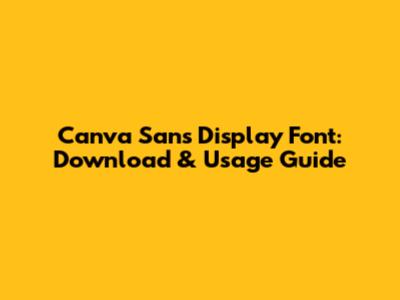
Canva Sans Display Font: Download & Usage Guide
Hey guys! Are you looking to elevate your design game with a fresh, modern font? Look no further! In this article, we're diving deep into Canva Sans Display, a versatile and eye-catching typeface that can seriously enhance your projects. We'll explore what makes Canva Sans Display so special, where you can download it, and how to effectively use it in your designs. So, buckle up and get ready to unleash the power of typography!
What is Canva Sans Display?
Let's start with the basics: what exactly is Canva Sans Display? Well, it's a sans-serif typeface designed with clarity and impact in mind. This font boasts clean lines, balanced proportions, and a contemporary feel, making it perfect for a wide range of applications. Canva Sans Display isn't just another font; it's a carefully crafted tool that helps you communicate your message effectively. Think of it as the stylish friend who always knows what to say and how to say it. Whether you're creating a sleek website header, a bold poster, or an engaging social media graphic, Canva Sans Display can help you make a statement.
One of the key features of Canva Sans Display is its versatility. It's designed to be legible at various sizes, ensuring that your text remains clear and readable whether it's displayed on a large screen or a small mobile device. The font also includes a variety of weights and styles, giving you the flexibility to create visual hierarchy and add emphasis where needed. From light and airy to bold and impactful, Canva Sans Display offers a range of options to suit your specific design needs. Furthermore, the font supports a wide range of characters and languages, making it a great choice for international projects. So, whether you're designing for an English-speaking audience or reaching out to a global market, Canva Sans Display has got you covered. In essence, Canva Sans Display is more than just a font; it's a comprehensive typographic solution that can help you bring your creative visions to life. Its modern aesthetic, combined with its practical features, makes it a valuable asset for designers of all levels. So, if you're looking for a font that can help you make a lasting impression, Canva Sans Display is definitely worth considering.
Why Use Canva Sans Display?
Now, you might be wondering, "Why should I choose Canva Sans Display over the thousands of other fonts out there?" That's a great question! There are several compelling reasons why Canva Sans Display stands out from the crowd. First and foremost, it's incredibly versatile. This font can be used in a wide range of design projects, from website headers and logos to social media graphics and print materials. Its clean, modern aesthetic makes it suitable for both corporate and creative applications.
Another key advantage of Canva Sans Display is its readability. The font is designed with clear, well-defined characters that are easy to read at various sizes. This is especially important for digital designs, where users may be viewing your content on different devices and screen resolutions. With Canva Sans Display, you can be confident that your text will always be legible and visually appealing. Moreover, Canva Sans Display is designed to work seamlessly with other fonts. It pairs well with both serif and sans-serif typefaces, giving you the freedom to create interesting and dynamic typographic compositions. Whether you're looking to create a classic, elegant look or a bold, modern feel, Canva Sans Display can help you achieve your desired aesthetic. In addition to its versatility and readability, Canva Sans Display is also a great choice for branding. The font has a distinct personality that can help you create a memorable and recognizable brand identity. Its clean lines and modern feel convey a sense of professionalism and sophistication, making it ideal for businesses that want to project a polished image. Overall, Canva Sans Display is a fantastic font that offers a winning combination of style, versatility, and readability. Whether you're a professional designer or a beginner, this font can help you create stunning designs that capture attention and communicate your message effectively. So, if you're looking for a font that can elevate your design game, Canva Sans Display is definitely worth exploring.
How to Use Canva Sans Display Effectively
Alright, you've got Canva Sans Display downloaded and ready to go. Now what? How do you actually use it effectively in your designs? Here are a few tips and tricks to help you get the most out of this fantastic font:
1. Establish Hierarchy: Use different weights and sizes of Canva Sans Display to create a visual hierarchy in your designs. For example, use a bold weight for headings and a lighter weight for body text. This will help guide the reader's eye and make your content more engaging. Use Canva Sans Display to bring titles and paragraphs to life.
2. Pairing is Key: Experiment with pairing Canva Sans Display with other fonts to create visual interest. It works well with both serif and sans-serif fonts, so don't be afraid to try different combinations. Canva Sans Display to improve your design.
3. Consider Contrast: Pay attention to the contrast between your text and background colors. Ensure that your text is easy to read by choosing colors that provide sufficient contrast. For example, use dark text on a light background or vice versa. The Canva Sans Display offers the best readability.
4. Whitespace Matters: Don't overcrowd your designs with too much text. Leave plenty of whitespace around your text to give it room to breathe. This will make your designs more visually appealing and easier to read. Be creative and use Canva Sans Display to improve your design.
5. Be Consistent: Use Canva Sans Display consistently throughout your designs to create a cohesive brand identity. Stick to a specific set of weights and styles and use them consistently across all your materials. Consider Canva Sans Display a brand asset.
So there you have it, folks! Canva Sans Display is a fantastic font that can elevate your designs to the next level. Its versatility, readability, and modern aesthetic make it a valuable asset for designers of all levels. Whether you're creating a website, a poster, a social media graphic, or a brochure, Canva Sans Display can help you create stunning visuals that capture attention and communicate your message effectively. So, go ahead and download Canva Sans Display today and start experimenting with its endless possibilities. Unleash your creativity and see what amazing things you can create with this versatile font. Happy designing!